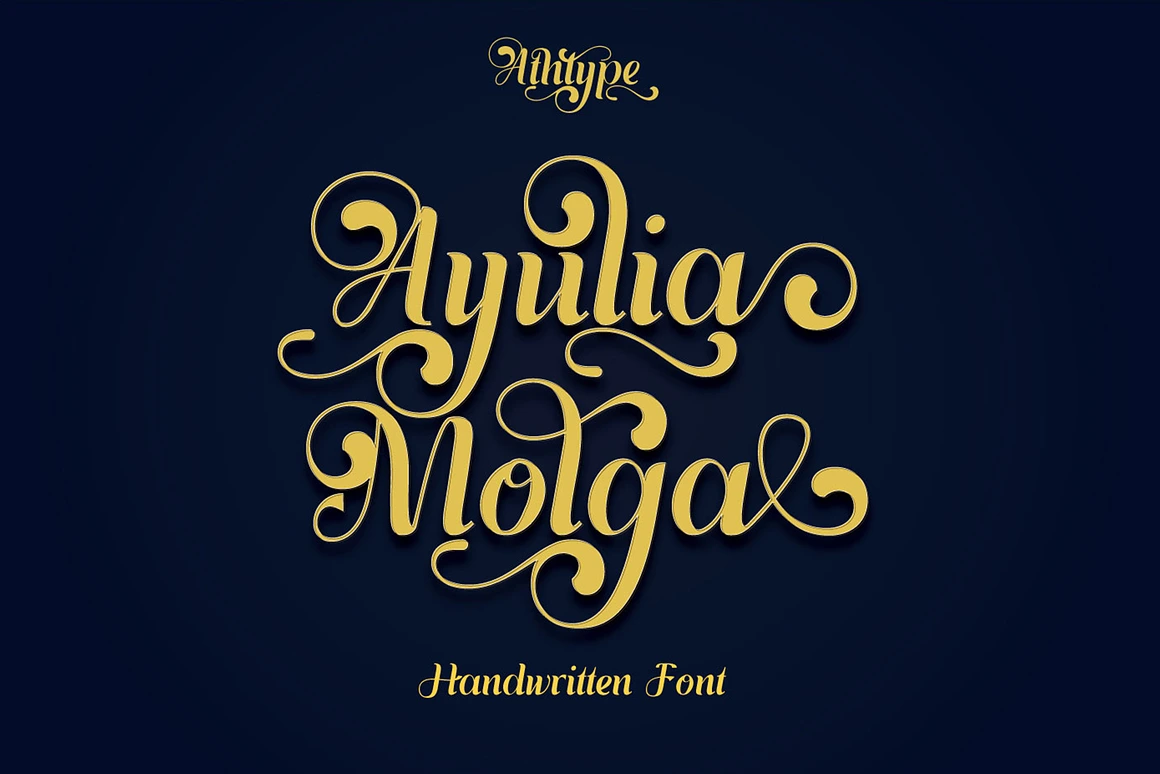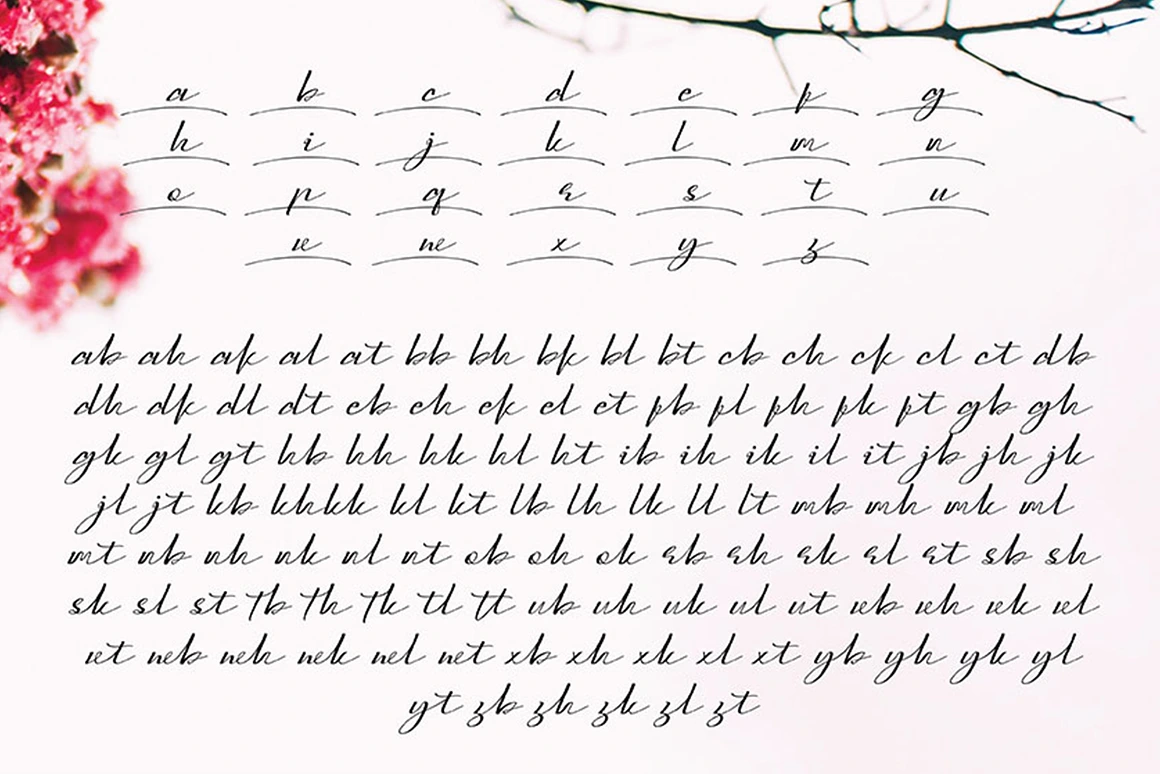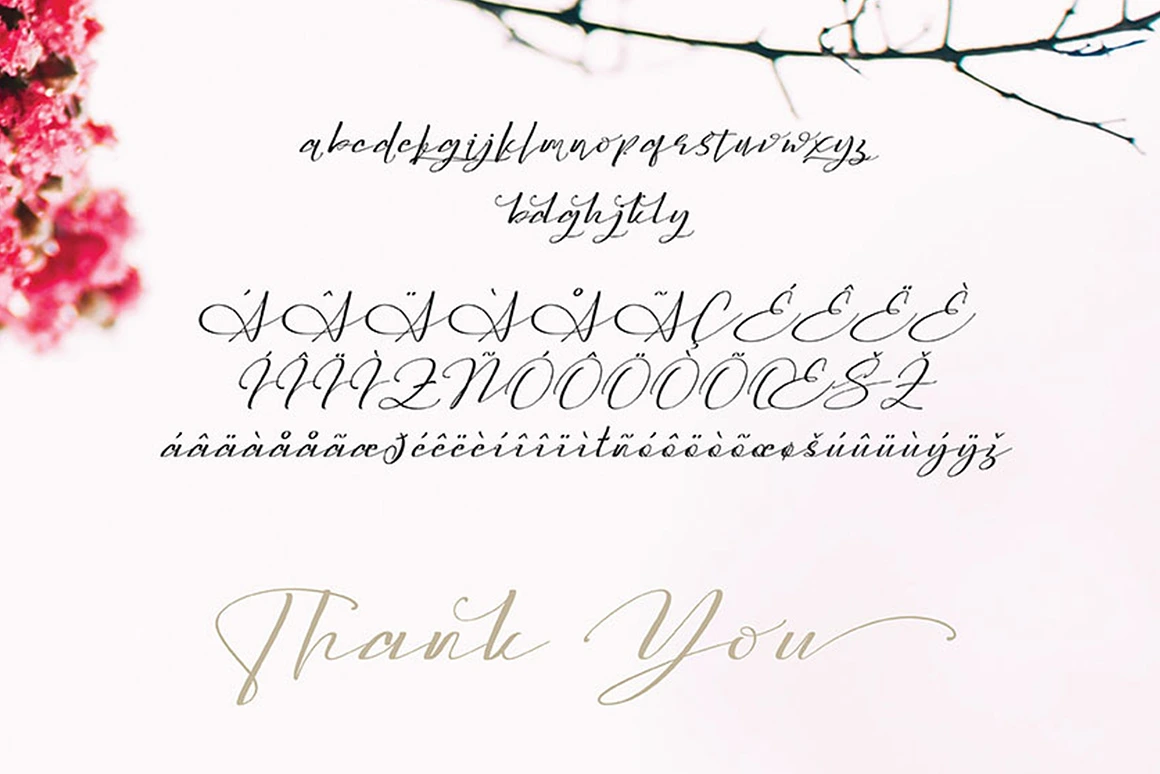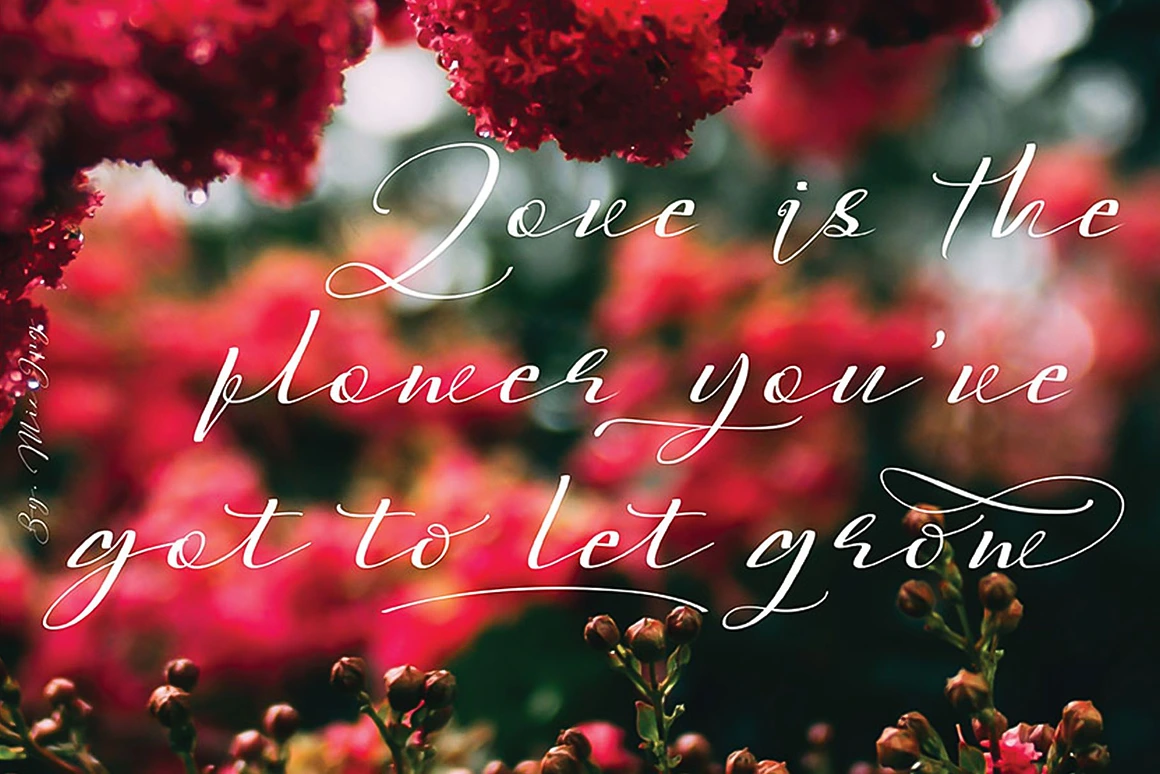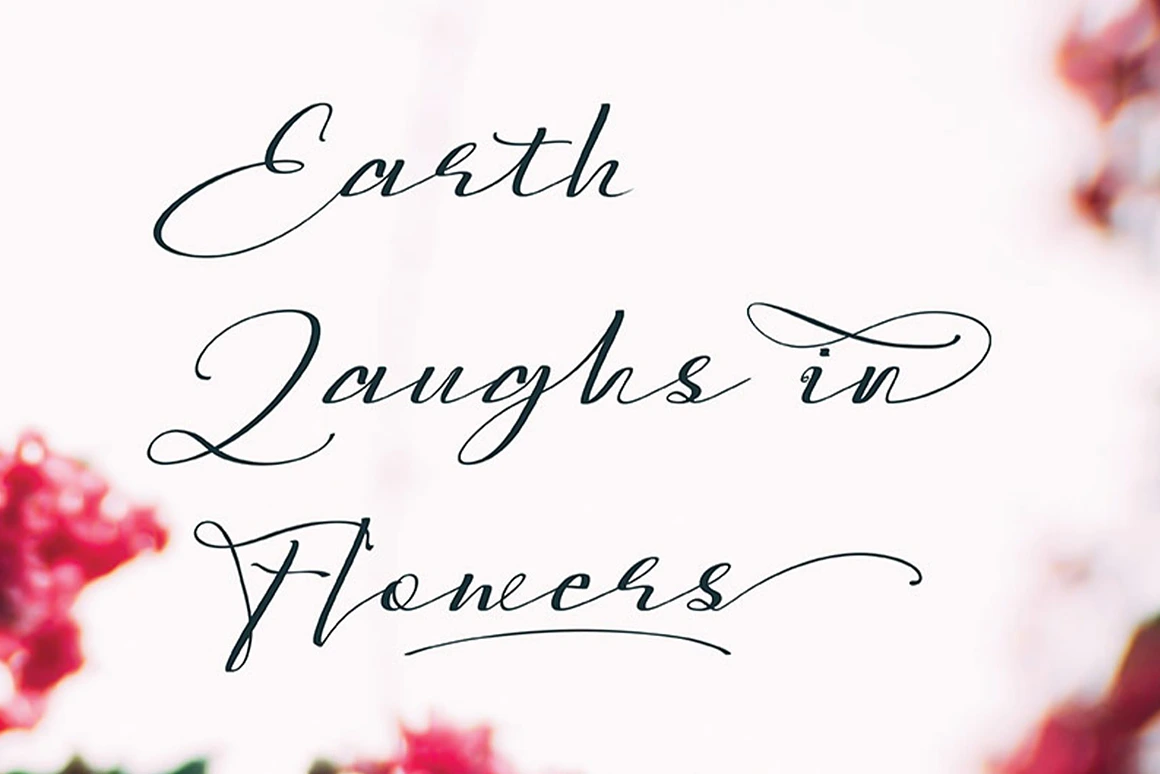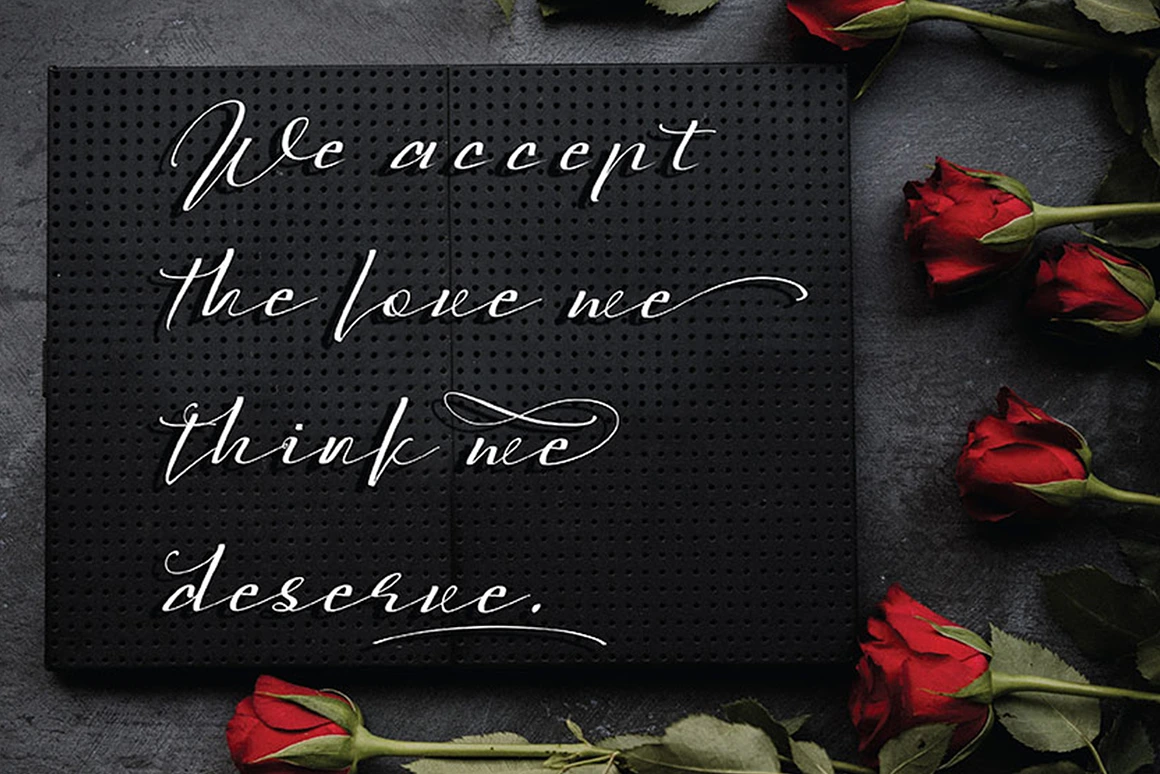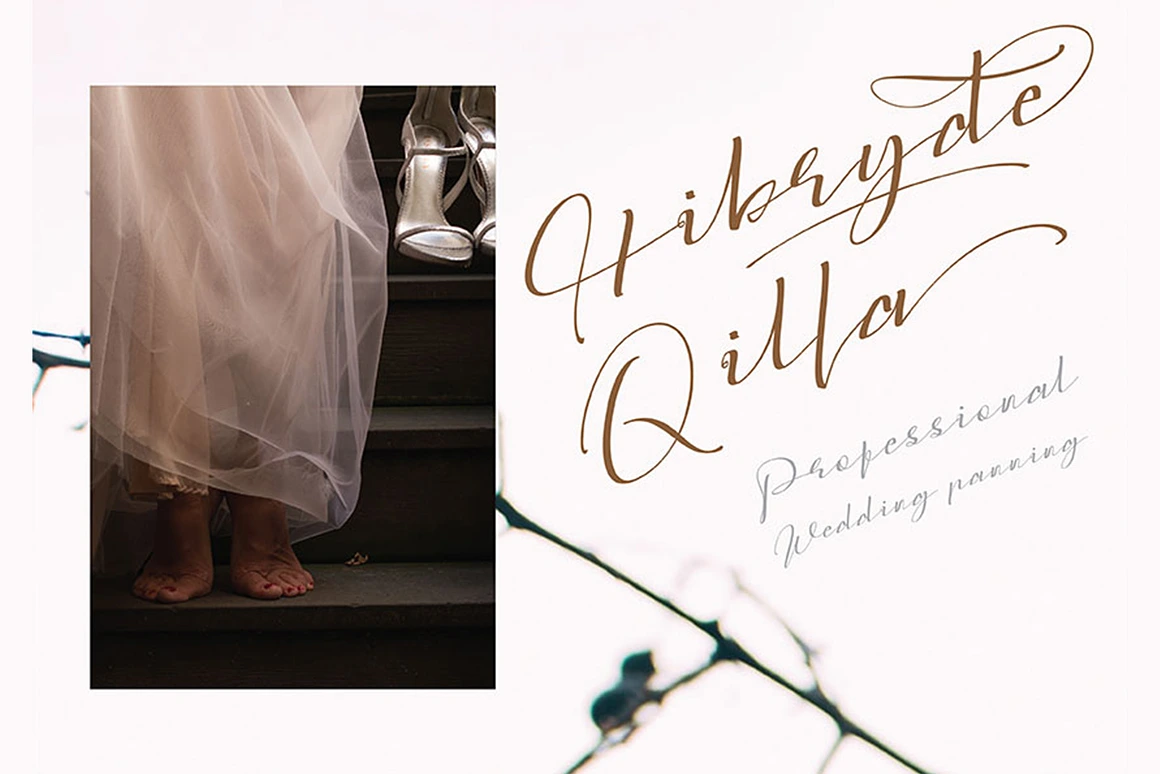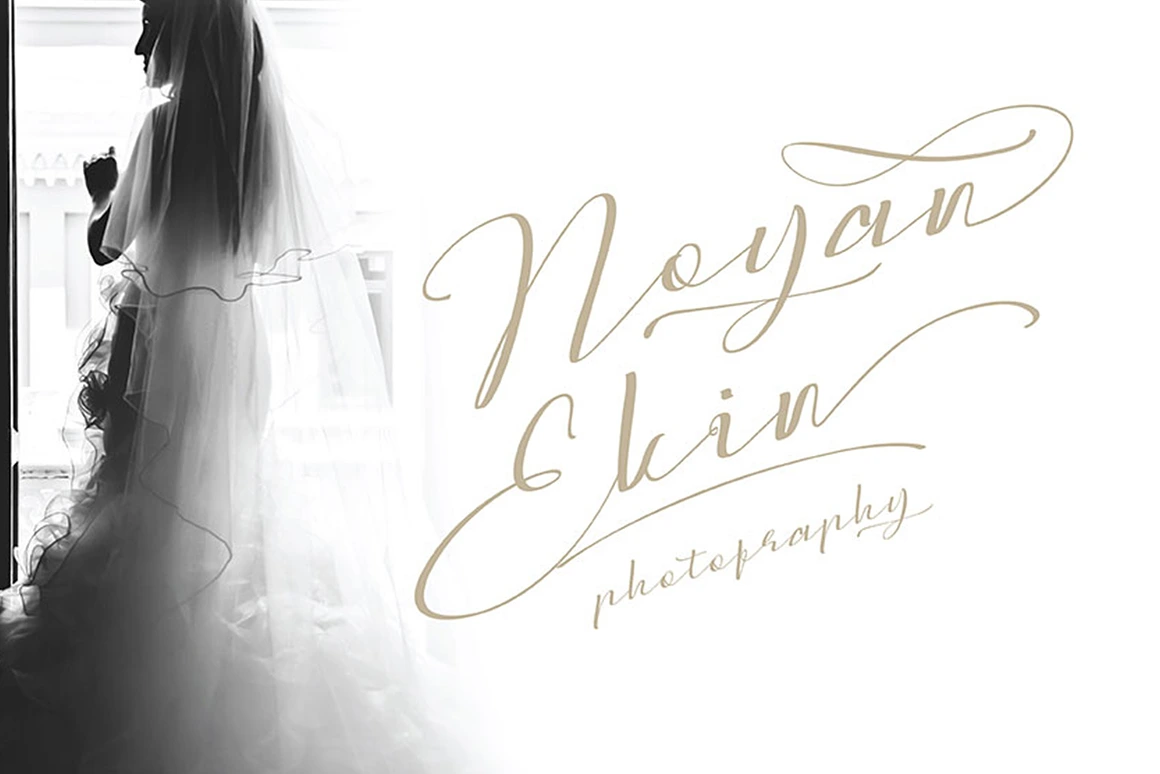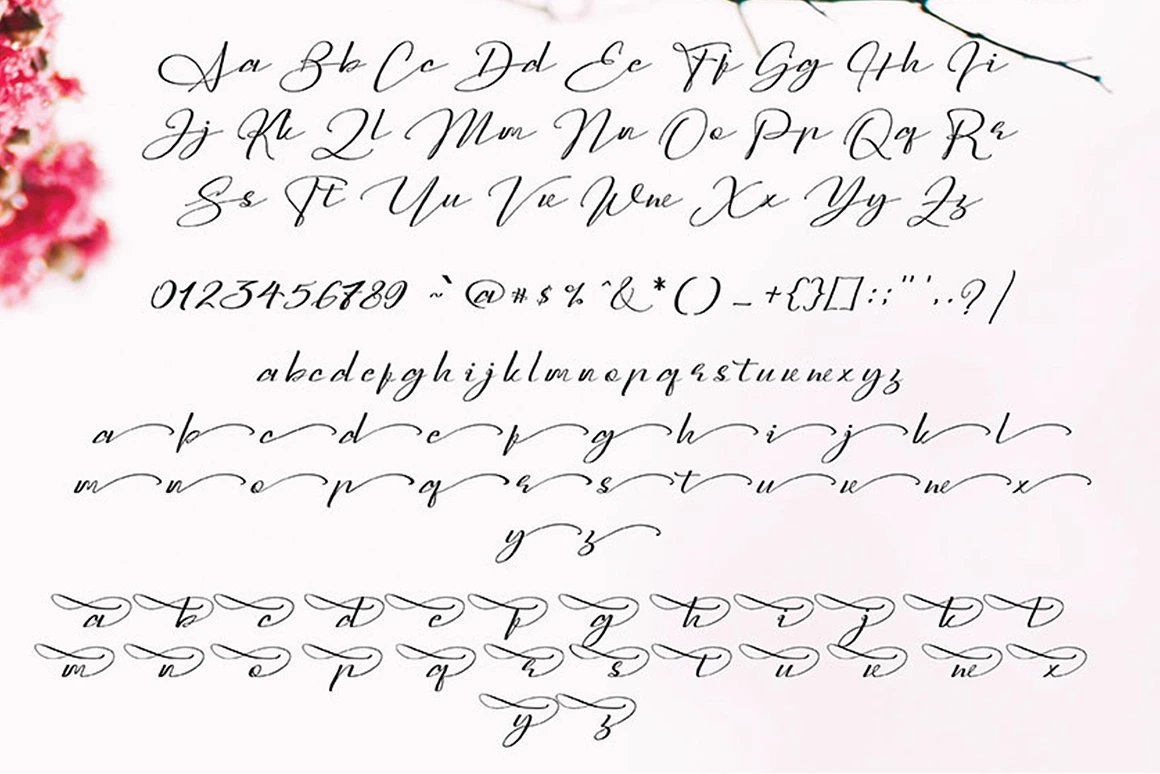
Ayulia Molga Handwritten Font
Ayulia Molga Handwritten Font created by AuthenType. This font features a classic and elegant style, perfect for:
The concept of font design for the food, drink and cake industry leads to an energetic and creative youth market processing the taste and color of food. Features
Ayulia Molga Handwritten Font (OTF/TTF/WOF) Standard glyphs uppercase and lowercase letters Numerals, a large range of punctuation and ligatures. Lowercase letters include ending swashes. Works on PC & Mac. Simple installations, accessible in the Adobe Illustrator, Adobe Photoshop, Adobe InDesign, even work on Microsoft Word. PUA Encoded Characters – Fully accessible without additional design software. Fonts include multilingual support for; ä ö ü Ä Ö Ü ß ¿ ¡ ____